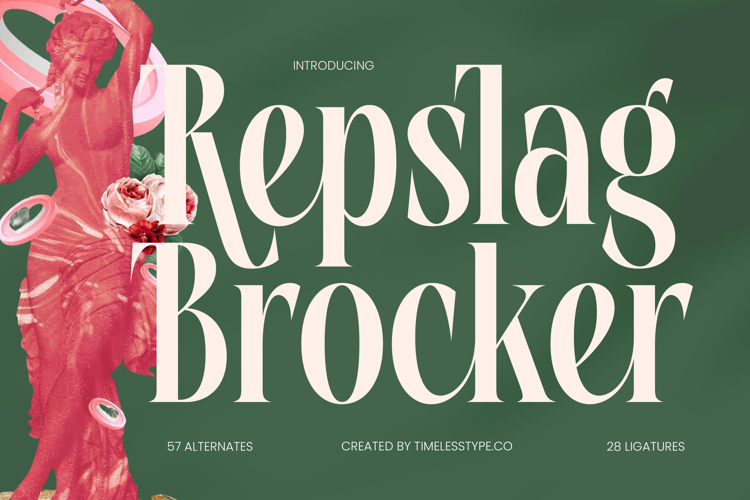
Repslag Brocker - Modern Display Serif Font
The Repslag Brocker Typeface is a striking modern serif font that embodies bold elegance, refined artistry, and versatile functionality. Its design showcases a balance of sharp, angular serifs and smooth, flowing curves, resulting in a typeface that feels contemporary yet timeless. With 57 alternates and 28 ligatures, it offers designers an impressive level of flexibility, allowing endless typographic experimentation for creating unique and impactful compositions. The distinct contrast between thick and thin strokes gives each letter a sense of sophistication and drama, making it ideal for projects where text needs to stand out as a visual centerpiece.
This font shines in contexts where luxury, creativity, and bold character are essential. Its commanding presence makes it perfect for editorial headlines, magazine covers, high-end advertising campaigns, and book titles. The decorative alternates and ligatures give designers the ability to craft dynamic wordmarks and logos that exude uniqueness and exclusivity. As such, Repslag Brocker is highly suitable for fashion branding, beauty products, luxury packaging, and boutique businesses that want to communicate refinement and prestige.